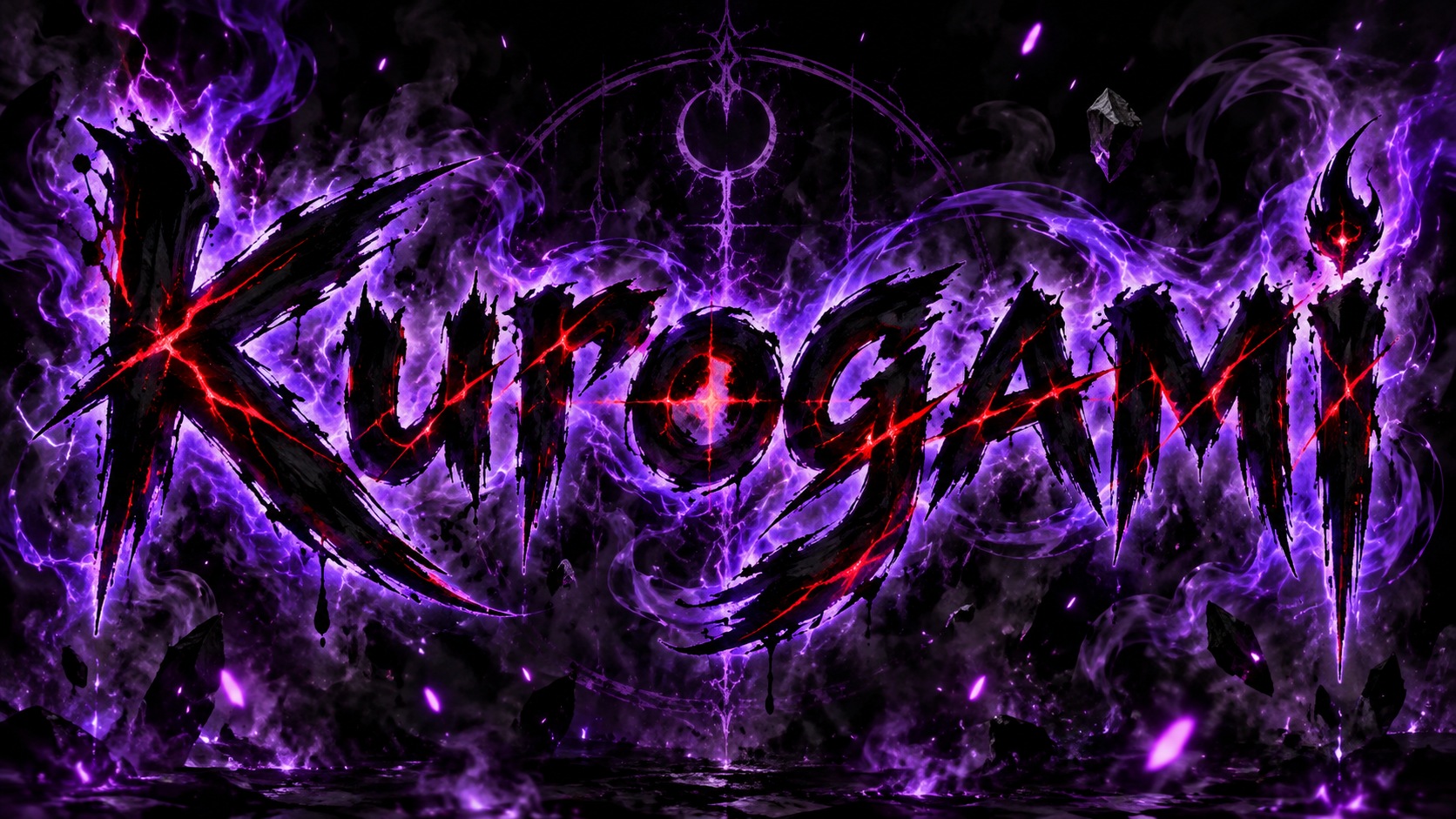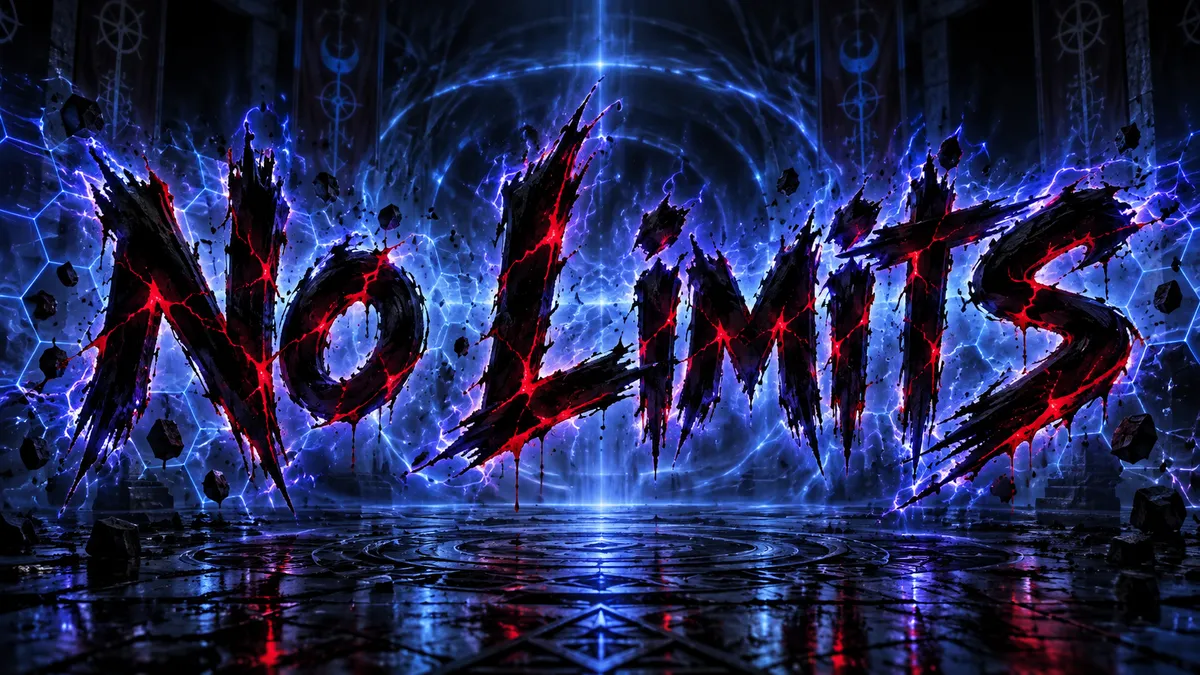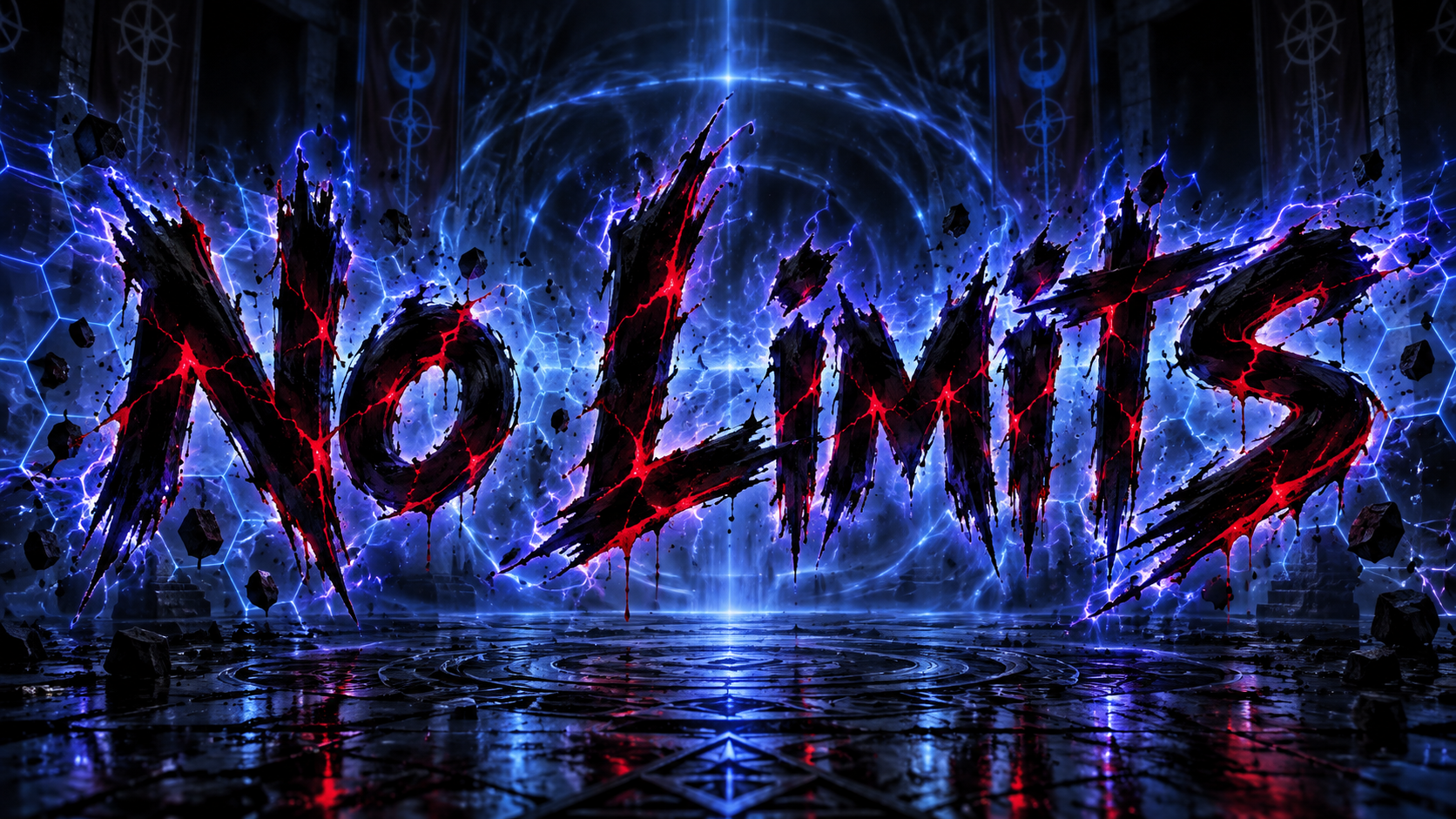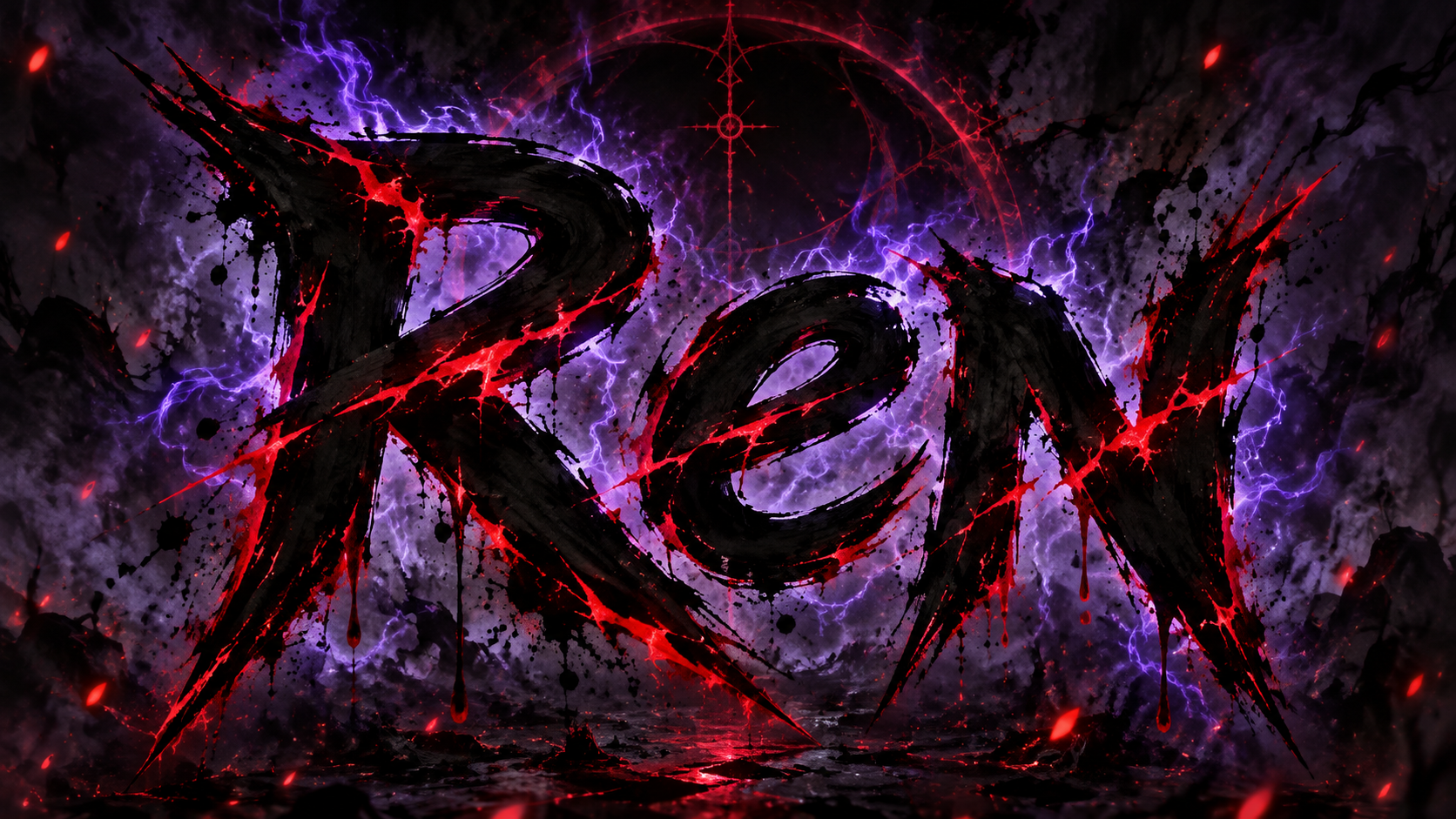
Heavy slashed brush capitals in black and crimson with violet-blue energy, inspired by the anime. Fan-made.
Japanese title graphics and English publication lettering are separate references. No exact official font name is confirmed here.
Compare the same word, Ren, across five Standard samples at 1672 × 941 pixels. Each link opens the matching text, preset, model, and wide canvas without starting a generation. Kurogami and No Limits remain as additional examples below.
Crimson Slash
Violet Flame
Blue Distortion
Ink Vortex
City Neon
The JJK font fans want is the series title look: heavy, slashed brush-stroke capitals with rough ink edges, black letters cut by crimson, and sparks of violet-blue energy crackling around them like something dangerous barely held in check. Fontique does not provide that typeface or reproduce the logo. Our AI renders your own name in an original dark-sorcery anime style inspired by that visual language, whether you searched for a JJK font or a Jujutsu Kaisen font.
Presets channel different kinds of power. Crimson Slash is the black-and-red brush base, Violet Flame wraps the letters in purple energy and black fire, Blue Distortion adds cold rippling light and a hex-pattern shimmer, Ink Vortex sets the text inside swirling black brush strokes, and City Neon goes electric against a rain-soaked street.
Additional lettering examples. Captions distinguish model samples from original design references.
No. Fontique does not host the series typeface or reproduce its logo. This is a fan-made generator that renders your text in an original slashed brush-stroke style inspired by that look. The result is a unique AI image, not a font file you can install.
Both terms are used to search for the series lettering. The Japanese anime title and English publication lettering are separate references, and their exact font names have not been confirmed here. This page creates original images for your own words. If you need original assets for a licensed project, contact the rights holder.